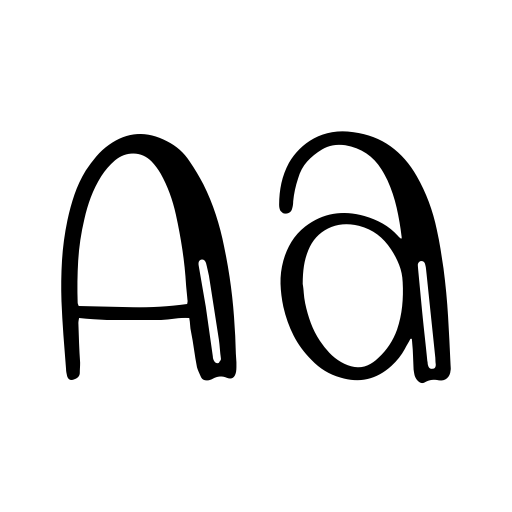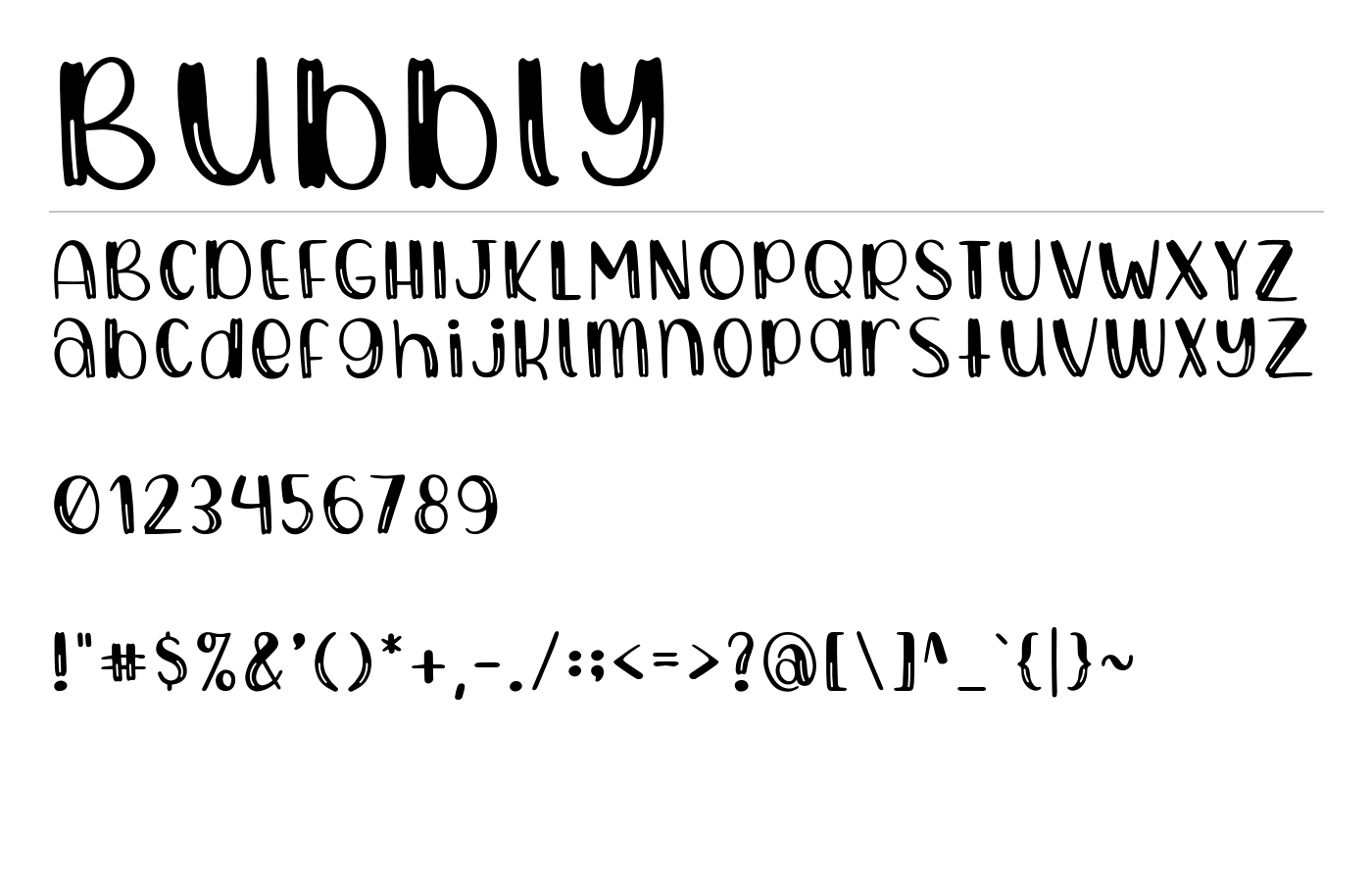
Bubbly Font is a playful, hand-drawn sans serif with an informal, whimsical character conveyed through its uneven strokes and quirky letterforms. Its light weight and airy spacing make it perfect for fun, casual designs such as children's books, party invitations, or creative branding that aims to feel approachable and lively. This font works best in headlines or short text where its unique personality can shine without sacrificing readability.
Bubbly Font
About Bubbly Font
| Font family | Bubbly Font |
| Designer | Emylia |